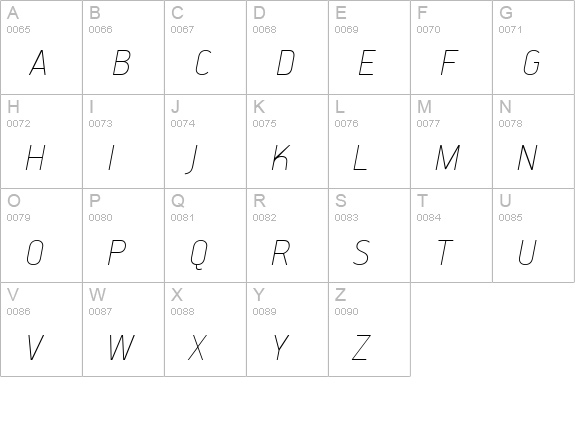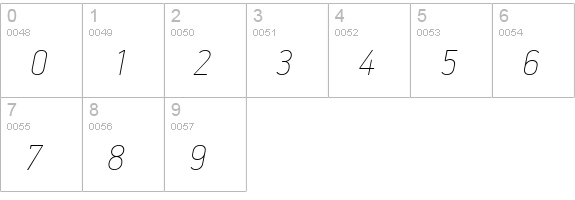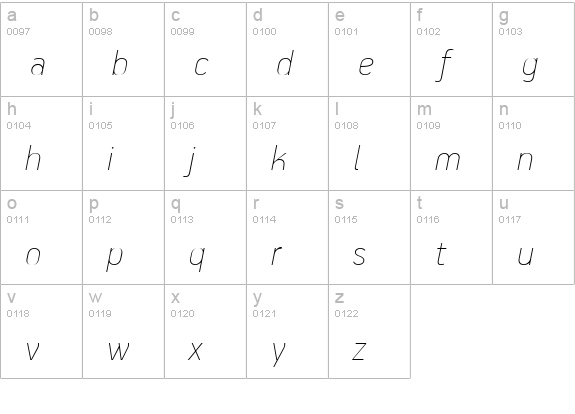
PFHandbookPro-ExtraThinItalic Font Details
PFHandbookPro-ExtraThinItalic is a sleek and elegant font that exudes sophistication and style. With its thin and italicized design, this typeface adds a touch of class to any project or design. Whether you're creating a modern website, designing a sleek logo, or crafting a stylish invitation, PFHandbookPro-ExtraThinItalic is the perfect choice. What's even better is that this font is available for free download at FontsMarket.com. Yes, you read that right - you can easily access this premium font without spending a dime. So go ahead and enhance your projects with the beauty and grace of PFHandbookPro-ExtraThinItalic today!